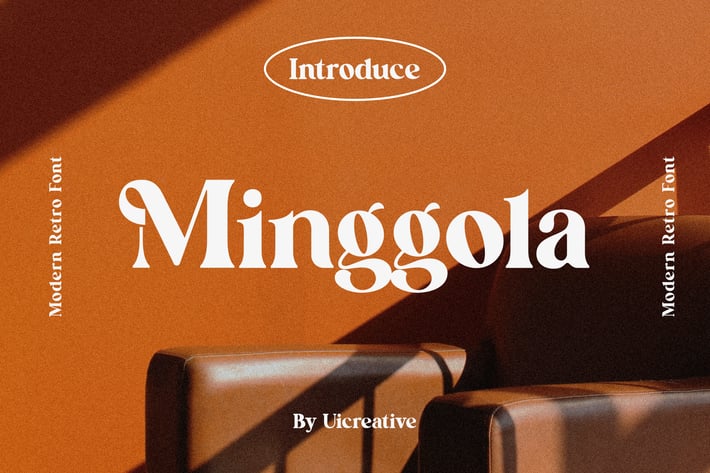
Minggola Modern Retro Serif Font
Introducing our new product the name is Minggola Modern Retro Serif Font. Minggola Modern Retro Serif Font that feels beautiful classy, elegant, and modern. This font is perfectly suited for a wide variety of projects, such as signature, stationery, logo, wedding, typography quotes, magazine or book covers, website headers, clothing, branding, packaging design, and more. Also, fashion-related branding or editorial design displays both masculine and feminine qualities.